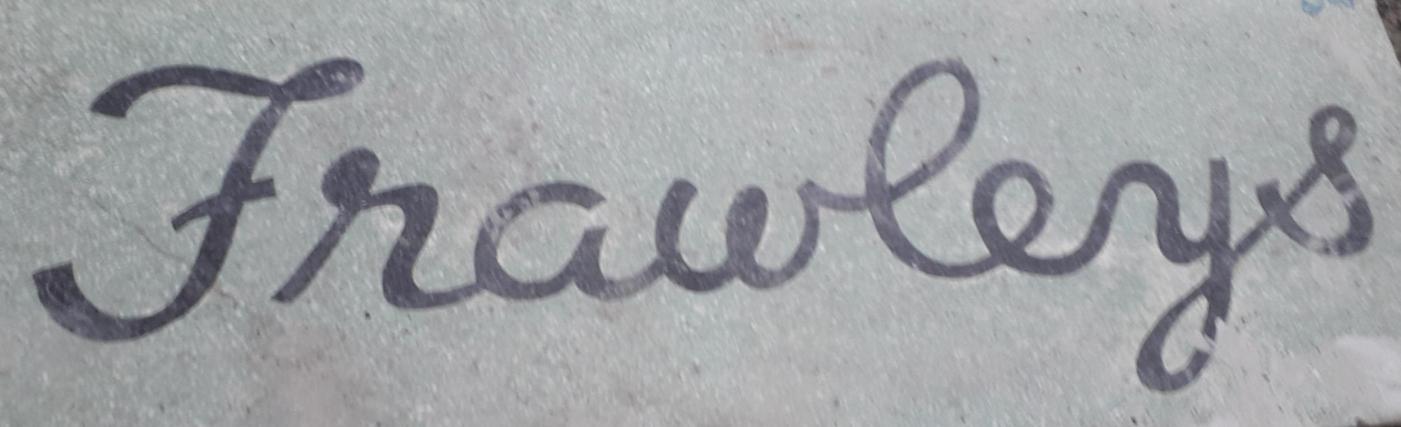
Cursive script from Frawleys Floor in Dublin
I am looking to identify the cursive font in the attached photograph.
It's the writing in the floor of Frawleys Department store in Dublin, Ireland, built some time around 1892. I am looking to recreate this for the current refurbishment works and want to use the same font to keep the reproduction as true as possible to history.
Probably not a font unless this was done very recently and it is a very clever OpenType font. The letter connections point to lettering.
But it’s not a problem. Make a hi-res image without any distortions through perspective, give it to a graphic designer and he/she will vectorize it from that.